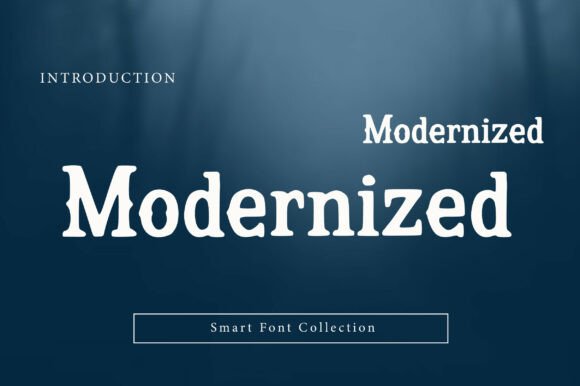
Modernized: A Versatile Serif Font for Timeless Design
In the world of typography, choosing the right font can make a significant difference in how your message is perceived. Modernized is a bold, clean serif display font that offers a contemporary vintage feel, blending classic serif shapes with smooth, slightly softened details. This unique combination makes it ideal for elegant headlines that still feel modern and fresh. Whether you're working on branding, logos, packaging, or editorial titles, Modernized delivers a confident, stylish look that works well in both minimalist and retro-inspired designs.
Modernized is particularly useful for those looking to create a sophisticated aesthetic without sacrificing clarity or readability. Its balanced structure ensures that it remains legible even at smaller sizes, making it suitable for a wide range of applications. From boutique branding to product labels, magazine-style headlines to modern vintage projects, this font provides a versatile solution for designers and creatives seeking a classy typography option.
Understanding the Needs and Challenges of Designers
Designers often face challenges when selecting fonts that align with their brand's identity while also appealing to their target audience. The right font can enhance the visual appeal of a design, reinforce brand messaging, and create a memorable impression. However, finding a font that strikes the perfect balance between elegance and modernity can be difficult.
Many designers seek a font that feels timeless yet current, one that can adapt to different design styles without losing its character. Traditional serif fonts may feel too old-fashioned, while sans-serif fonts might lack the sophistication needed for certain projects. This is where Modernized comes into play, offering a solution that bridges the gap between classic and contemporary design.
How Modernized Addresses Design Needs
Modernized is designed with these very needs in mind. Its clean lines and subtle curves give it a modern edge, while the serif elements provide a sense of tradition and refinement. This duality allows it to fit seamlessly into various design contexts, from high-end fashion branding to educational publications.
One of the key advantages of Modernized is its versatility. It can be used as a headline font to draw attention, or as a body text font in more detailed layouts. Its adaptability makes it an excellent choice for designers who want to maintain consistency across different platforms and mediums.
Practical Applications of Modernized
The applications of Modernized are vast and varied. For instance, in branding, it can be used to create a strong, recognizable identity that stands out in a competitive market. Its elegant appearance makes it ideal for logos, business cards, and other brand assets that require a professional yet approachable look.
In packaging and labeling, Modernized adds a touch of sophistication that can elevate the perceived value of a product. It works well on everything from food packaging to luxury goods, helping to communicate quality and style through typography alone.
For editorial projects such as magazines, newspapers, and book covers, Modernized provides a visually appealing way to present content. Its readability and aesthetic appeal make it a great choice for headlines, subheadings, and other typographic elements that need to capture attention and guide the reader's eye.
Examples and Recommendations
Consider using Modernized for a boutique clothing line that wants to convey a sense of elegance and exclusivity. The font’s refined look can help establish a brand identity that feels both modern and timeless. Similarly, a lifestyle blog focused on vintage aesthetics could benefit from Modernized’s retro-inspired design, adding a nostalgic touch to headlines and section titles.
For a more minimalist approach, Modernized can be paired with a simple sans-serif font to create a balanced contrast that highlights the strengths of both typefaces. This combination works well in digital interfaces, presentations, and print materials where clarity and visual interest are essential.
Considering Different Approaches to Typography
Designers may approach the use of Modernized in different ways depending on their specific goals and creative vision. Some may choose to use it as a dominant font for maximum impact, while others may use it as a complementary element to add depth and texture to their designs.
It’s also important to consider the context in which Modernized will be used. For example, a large-scale poster may require a bolder weight of the font to ensure visibility from a distance, whereas a small label might benefit from a lighter version to maintain readability.
Conclusion: Embracing the Power of Modernized
Modernized is more than just a font—it’s a powerful tool that can enhance the visual storytelling of any design project. Its ability to blend classic and contemporary elements makes it a valuable asset for designers looking to create work that feels both innovative and timeless.
Whether you’re working on a branding initiative, a publication, or a product design, Modernized offers a versatile and stylish solution that can help bring your vision to life. By understanding its strengths and considering how it fits into your design process, you can unlock new possibilities for creativity and expression.